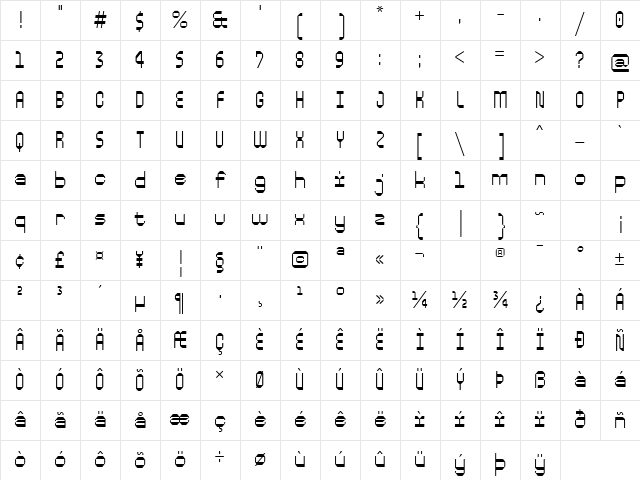
Complete TT Paplane Trial Thin glyph index. Displaying only characters natively supported by TT Paplane Trial Thin font.
TT Paplane Trial is a composed and adaptable typeface that performs quietly and consistently across a wide range of design contexts. Its slender proportions lend an understated elegance to any composition.